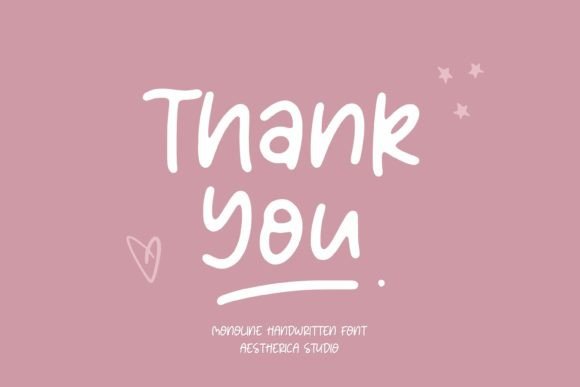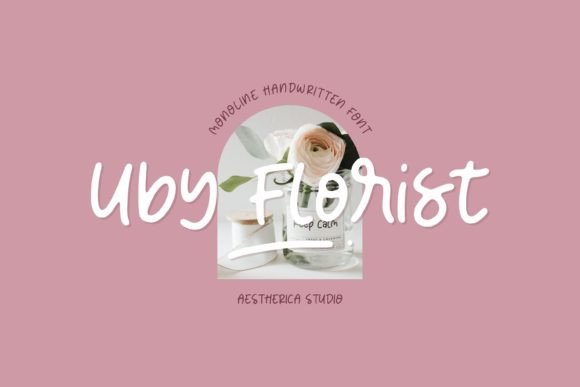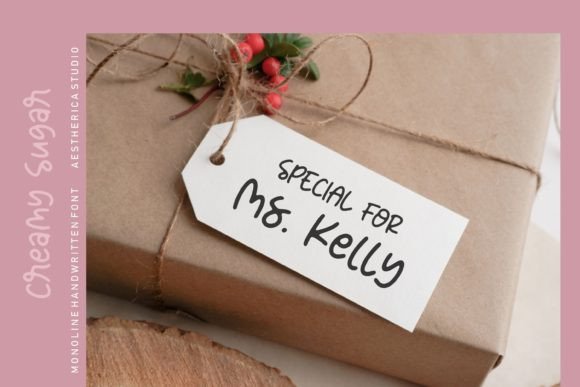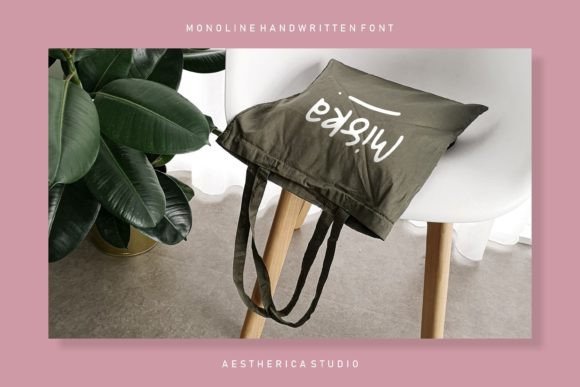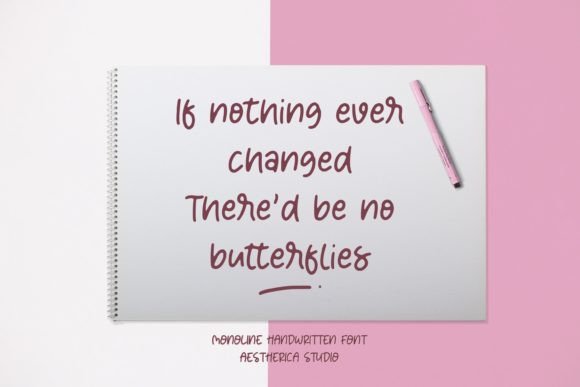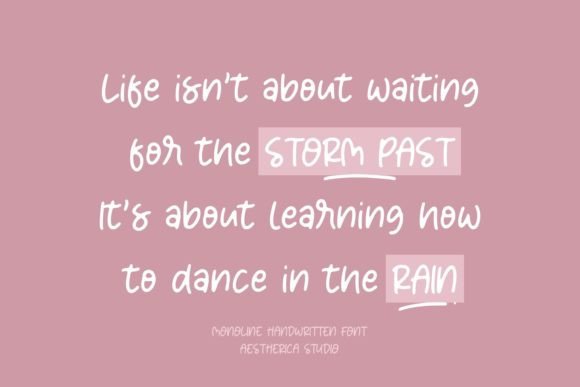
Creamy Sugar Font: Elevate Your Designs with a Modern Handwritten Monoline Script
In the world of typography, a font can make or break a design. For designers and crafters looking to add a personal touch to their projects, the Creamy Sugar Font is an excellent choice. This modern handwritten monoline script font is perfect for creating extraordinary designs that exude elegance and sophistication.
What is Creamy Sugar Font?
Creamy Sugar is a stylish and versatile font that boasts a natural, handwritten feel. Its monoline script style makes it ideal for a wide range of design applications, from wedding invitations and thank you cards to quotes, greeting cards, logos, and business cards. The font’s unique charm lies in its ability to add a customized touch to any design, making it stand out from the crowd.
Key Features of Creamy Sugar Font
- Modern Handwritten Monoline Script: Creamy Sugar Font features a modern, handwritten monoline script style that is both elegant and sophisticated.
- Natural and Stylish: The font’s natural and stylish appearance makes it perfect for designs that require a personal touch.
- Versatile: Creamy Sugar Font is versatile and can be used for a wide range of design applications, including wedding invitations, thank you cards, quotes, greeting cards, logos, and business cards.
- Customized Touch: The font’s unique style allows designers to add a customized touch to their designs, making them stand out from the crowd.
Design Applications for Creamy Sugar Font
Creamy Sugar Font is perfect for designers and crafters looking to create extraordinary designs. Here are some design applications where this font truly shines:
- Wedding Invitations: Add a touch of elegance and sophistication to your wedding invitations with Creamy Sugar Font.
- Thank You Cards: Create personalized thank you cards that exude warmth and appreciation with this beautiful font.
- Quotes: Use Creamy Sugar Font to create inspiring and motivational quotes that are both visually appealing and thought-provoking.
- Greeting Cards: Design beautiful greeting cards for special occasions, such as birthdays, anniversaries, and holidays, with this lovely font.
- Logos: Create unique and memorable logos for businesses and brands with Creamy Sugar Font.
- Business Cards: Add a touch of professionalism and elegance to your business cards with this modern handwritten monoline script font.
Why Choose Creamy Sugar Font?
With so many fonts available, why choose Creamy Sugar Font? Here are a few reasons why designers and crafters love this font:
- Unique Style: Creamy Sugar Font boasts a unique style that sets it apart from other fonts.
- High-Quality: Creamy Sugar Font is a high-quality font that is designed to produce crisp and clear results.
| Font Name | Creamy Sugar Font |
| Author | Aestherica Studio |
In conclusion, Creamy Sugar Font is an excellent choice for designers and crafters looking to add a personal touch to their designs. Its modern handwritten monoline script style, natural and stylish appearance, and versatility make it perfect for a wide range of design applications. Whether you’re creating wedding invitations, thank you cards, quotes, greeting cards, logos, or business cards, Creamy Sugar Font is sure to elevate your designs and make them stand out from the crowd.